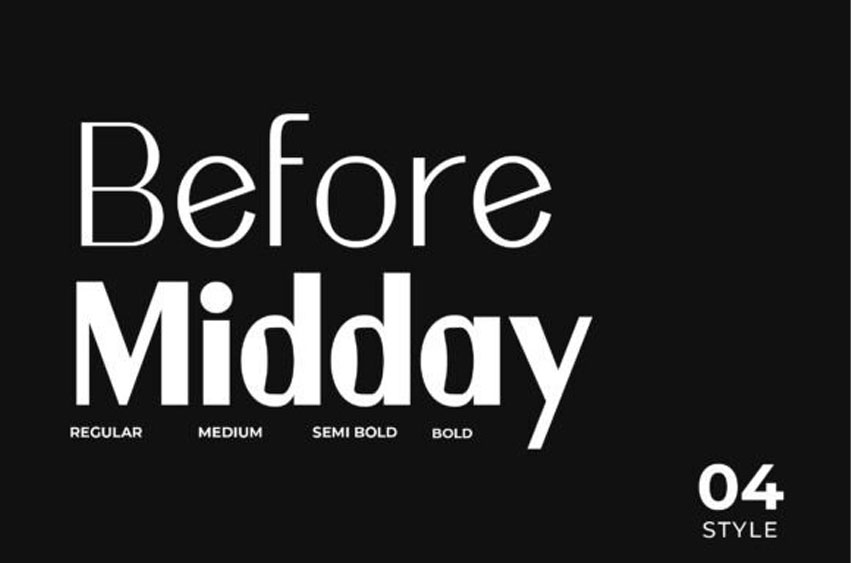
Before Midday Font
Before Midday Font Sophistication meets versatility in the Before Midday font, a contemporary sans-serif family that ranges from delicate hairlines to powerful bold weights.
This Before Midday typeface is the definition of modern elegance, offering a clean and balanced look that is essential for corporate identities, editorial layouts, and tech-focused branding. The high x-height and open apertures of the Before Midday font ensure exceptional readability across both print and digital platforms.
With four distinct styles included, the Before Midday typeface allows for seamless pairing within the same family, creating a cohesive and professional visual system. Use the “Regular” weight for body copy and the “Bold” or “Semi Bold” for striking headlines. Its timeless geometry makes it a reliable choice for everything from mobile app interfaces to architectural signage, providing a polished and “up-to-the-minute” feel to any project.